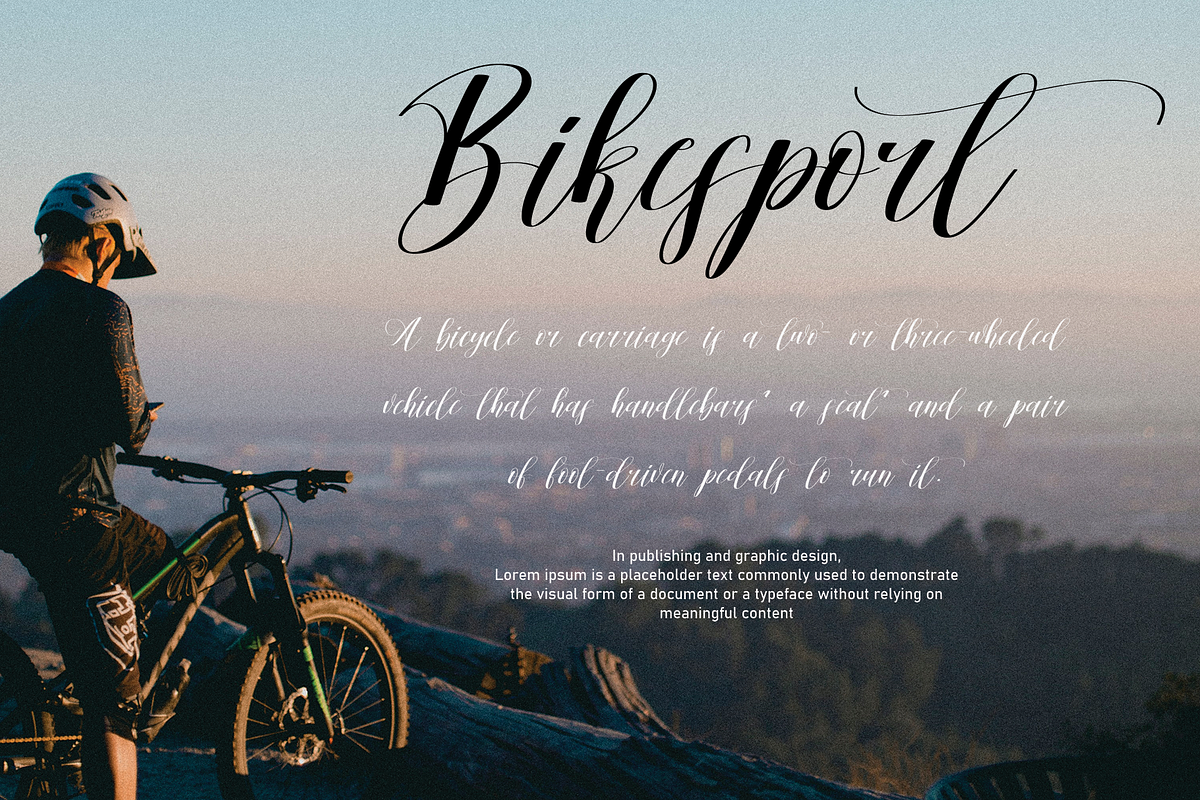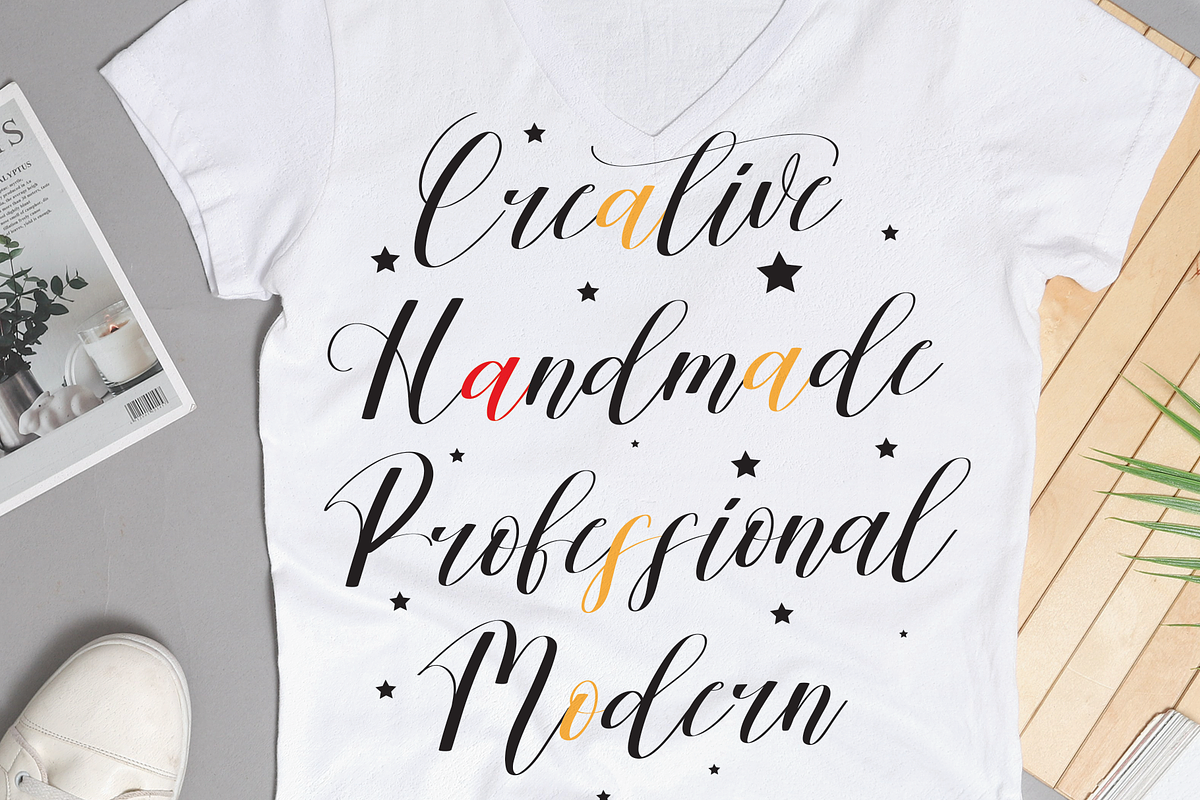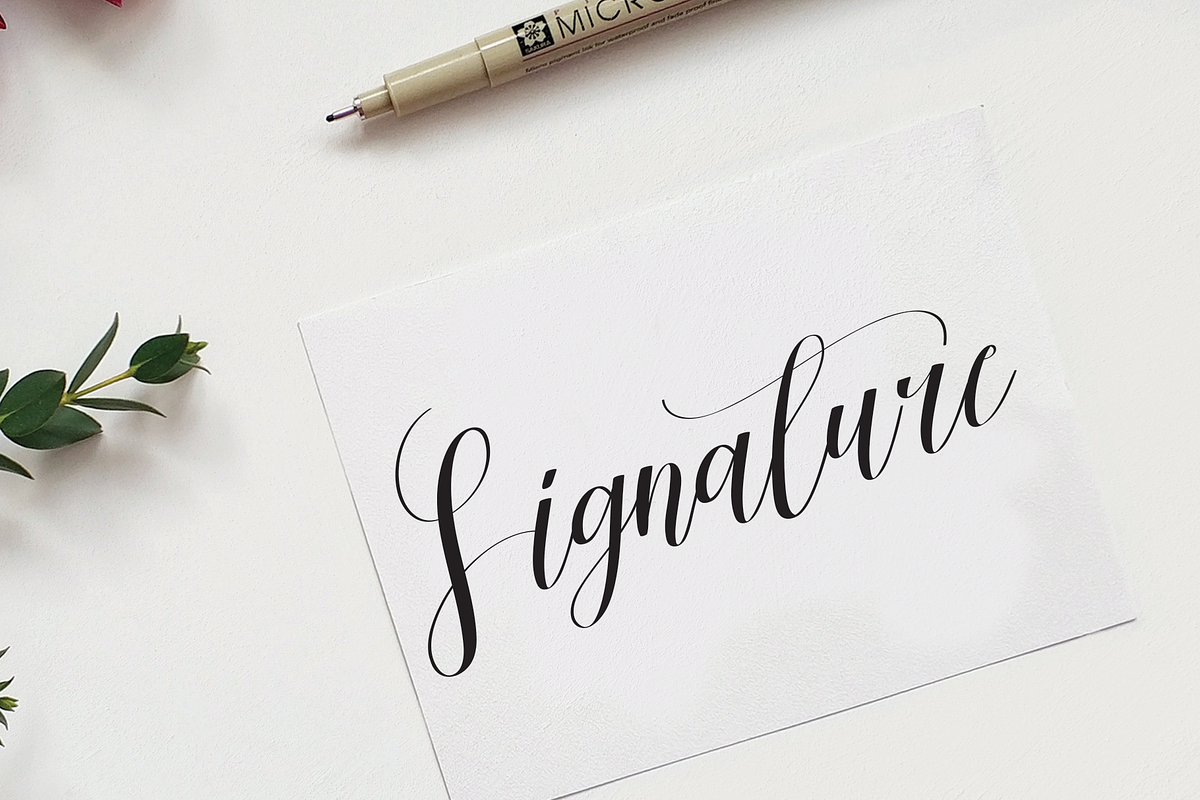
California Script is a popular and professional script font. It is Modern and elegant, this typeface is made of beautiful, creative strokes.
It is perfect for your creative ideas, both formal and informal. It has a modern style with a touch of creative ideas that is very suitable to be applied anywhere that requires creative ideas such as invitation cards, letterheads, website logos, social media, banners, advertisements, brochures, packaging products, leather products, and any product that requires writing.
This font includes a complete set of beautiful upper and lowercase letters, numbers, a wide variety of punctuation marks, and ligatures. All lowercase letters include a start and end, providing a realistic style. everything you get.